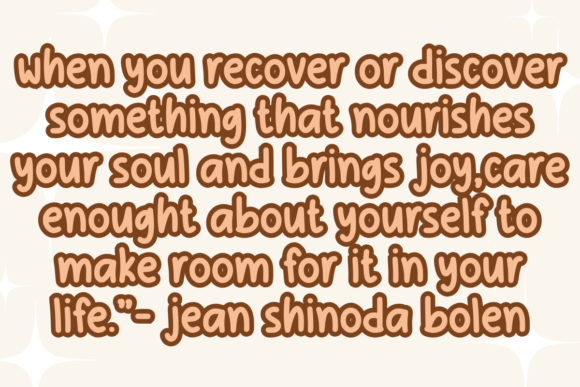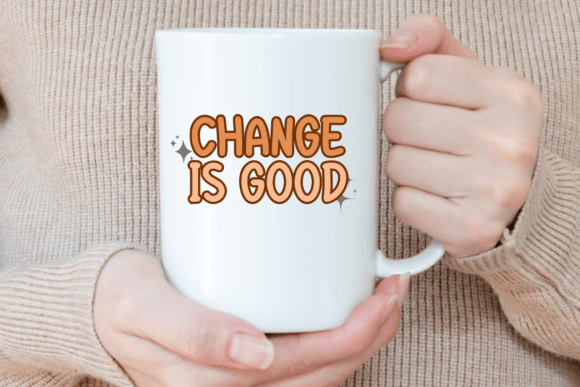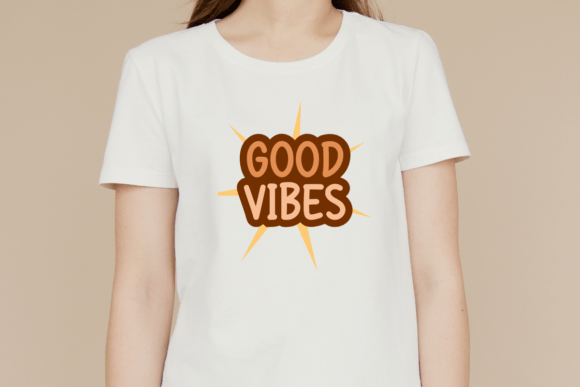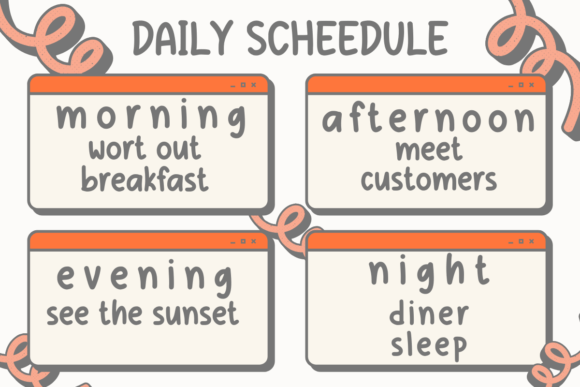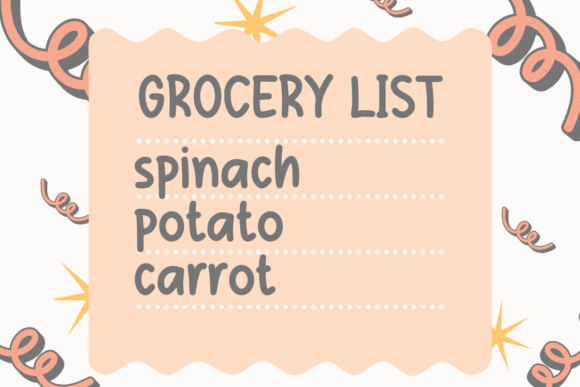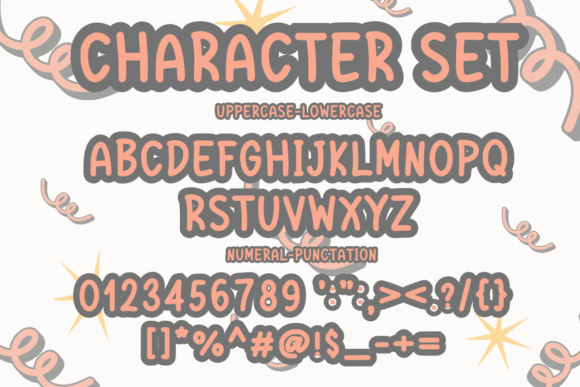
Bring a Touch of Whimsy to Your Designs
Have you ever found yourself staring at a blank page, searching for the perfect font to capture the essence of your creative vision? That’s exactly where I was when I stumbled upon the Good Nature Font. Its adorable and playful style has a way of transporting you to a world of wonder, where the lines between reality and fantasy blur.
Good Nature Font is more than just a cute and fun handwritten font – it’s a game-changer for designers. With its natural strokes and touches, it has the power to elevate any creation, making it a wonderful asset to your font library. Whether you’re working on a children’s book, a greeting card, or a social media campaign, this font is sure to bring a smile to your audience’s face.
Good Nature Font Key Features
- Font Family: Good Nature Font is a sans-serif typeface designed for clear and friendly communication. It comes in 6 weights, from Light to Bold.
- Size: The font size is scalable, allowing for flexibility in design projects. It supports font sizes from 8 to 72 points.
- Resolution: Good Nature Font is optimized for high-resolution displays, making it perfect for digital design, printing, and signage.
- Unique Characteristics: The font features rounded edges, friendly terminals, and a highly legible design, making it ideal for body text, signage, and branding.
- Language Support: Good Nature Font supports a wide range of languages, including Latin, Cyrillic, and Greek scripts, as well as some Asian languages.
Good Nature Font Review
I recently had the chance to work with the Good Nature Font, and overall, I’m impressed. Here are some things that stood out to me:
- ✨ Friendly feel: The Good Nature Font has a warm and inviting feel to it, perfect for designs that need a natural touch.
- ✨ Customizable: The font offers a range of styles and weights, making it easy to adapt to different design needs.
- ✨ Versatile: From headings to body text, the Good Nature Font works well in a variety of contexts.
- ⚠️ Limited language support: The font may not be as effective for languages that require more complex typography.
- ⚠️ Not ideal for small text: The Good Nature Font can become difficult to read at very small sizes.
Overall, the Good Nature Font is a solid choice for designers looking for a natural, approachable feel. While it may not be perfect for every project, it’s a great option for those seeking a friendly, customizable font. With some careful consideration of its limitations, the Good Nature Font can be a valuable addition to any designer’s toolkit.
Good Nature Font Practical Application Guide
Tips for Getting the Most Out of Good Nature Font
Use Good Nature Font for headings and titles to add a touch of elegance and sophistication.
Pair Good Nature Font with other fonts for a unique and visually appealing design.
Experiment with different font sizes and colors to create a striking visual effect.
Use Good Nature Font for:
Branding and logos
Food and beverage packaging
Magazine and newspaper headings
Alternatives to Good Nature Font for Designers
Lato is a modern sans-serif font that is highly legible and versatile. It is suitable for use in digital products, magazines, and websites. Lato is a great alternative to Good Nature Font as it has a similar clean and elegant feel, but with a more neutral tone.
Comparison to Good Nature Font: Lato is more geometric and modern, whereas Good Nature Font has a more natural and handwritten feel.
2. Merriweather Font
Merriweather is a classic serif font that is elegant and sophisticated. It is suitable for use in books, magazines, and websites where a traditional feel is desired. Merriweather is a great alternative to Good Nature Font as it has a similar vintage feel, but with a more formal tone.
Comparison to Good Nature Font: Merriweather is more formal and traditional, whereas Good Nature Font has a more casual and handwritten feel.
Open Sans is a clean and modern sans-serif font that is highly legible. It is suitable for use in digital products, websites, and applications. Open Sans is a great alternative to Good Nature Font as it has a similar clean and modern feel, but with a more neutral tone.
Q: What is the recommended font size for using Good Nature Font?
The recommended font size for Good Nature Font varies depending on the context and application. As a general rule, use font sizes between 12pt and 18pt for body text, and larger font sizes (24pt to 48pt) for headings and titles. This will ensure optimal readability and visual appeal.